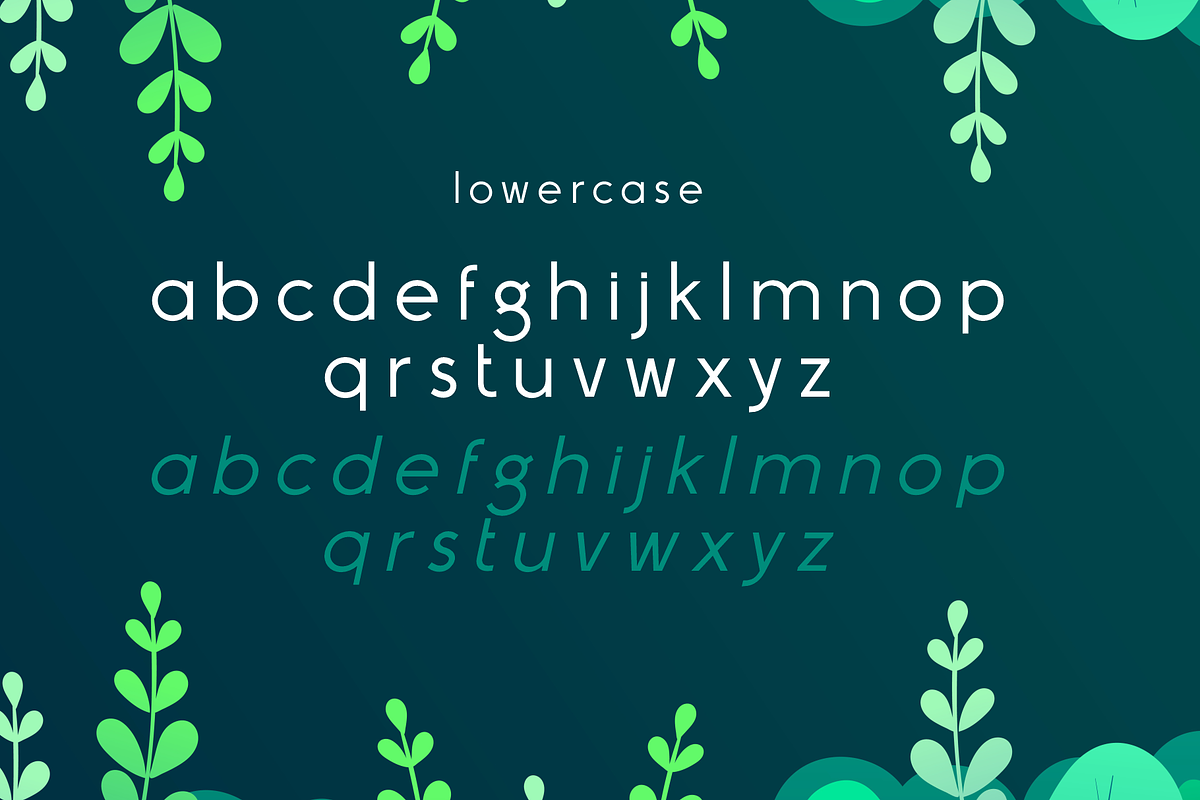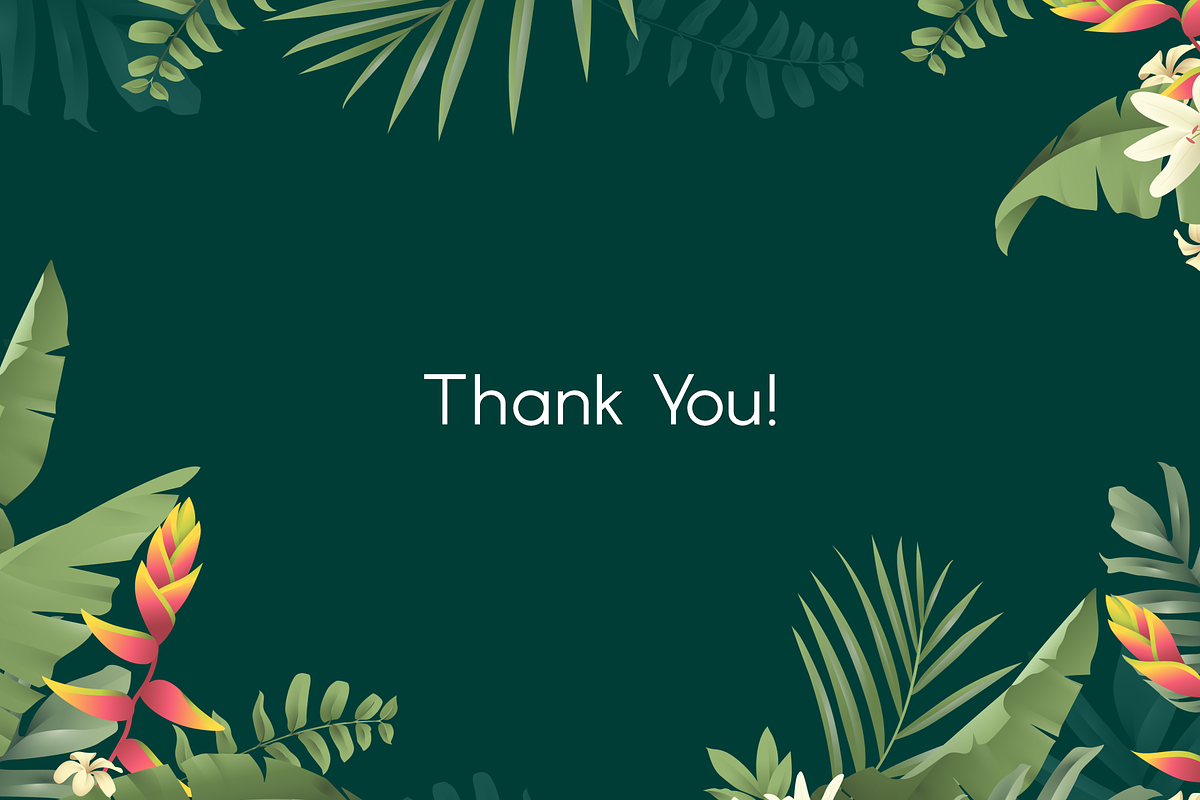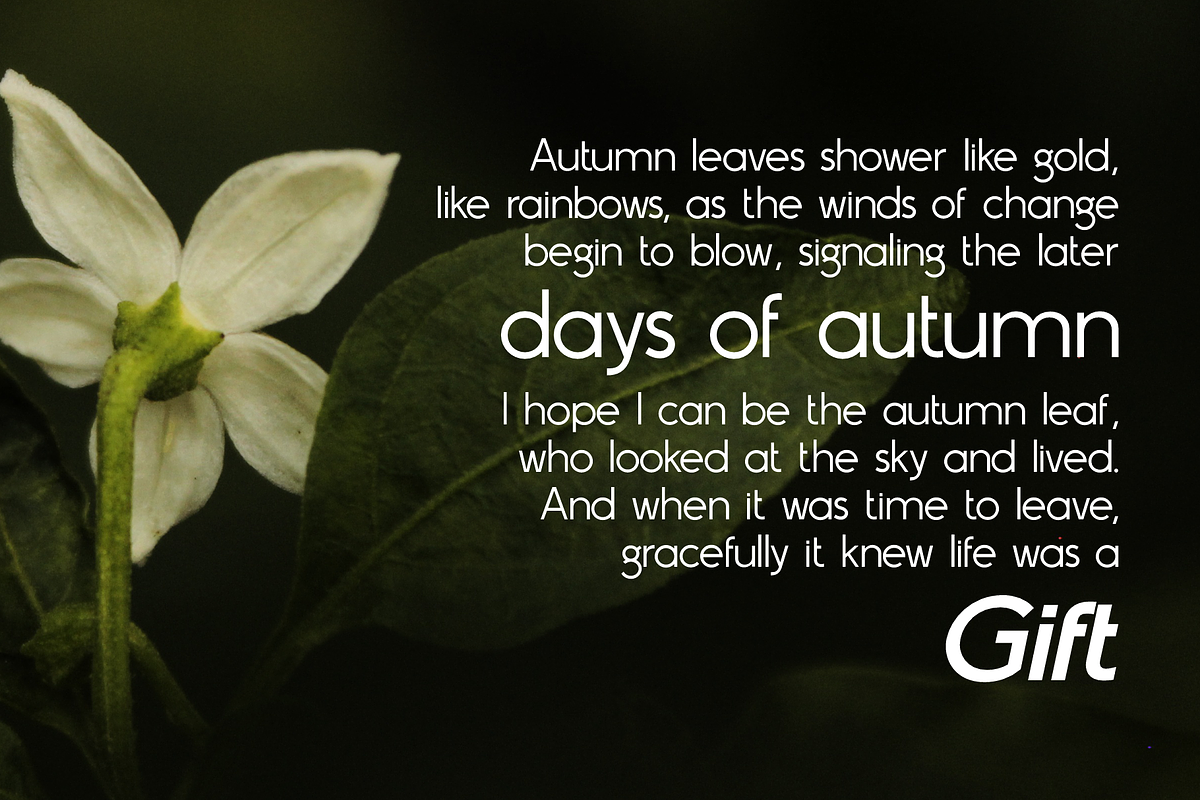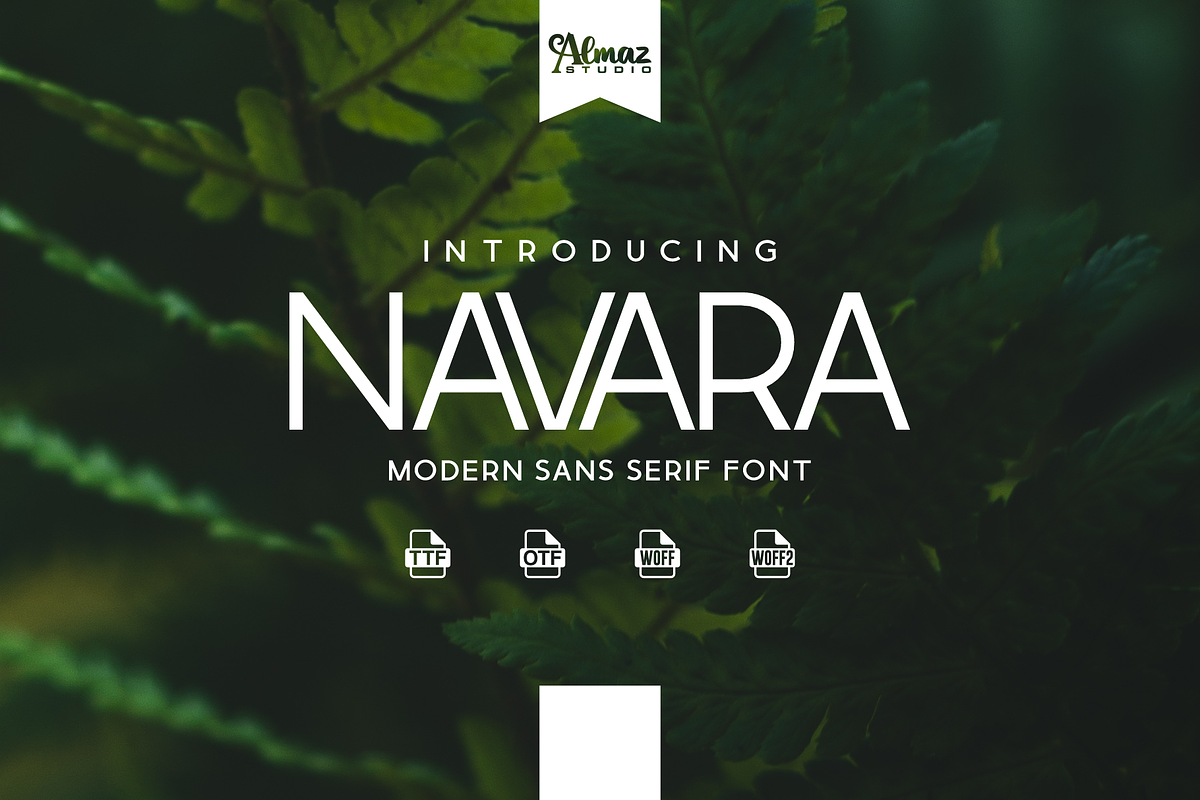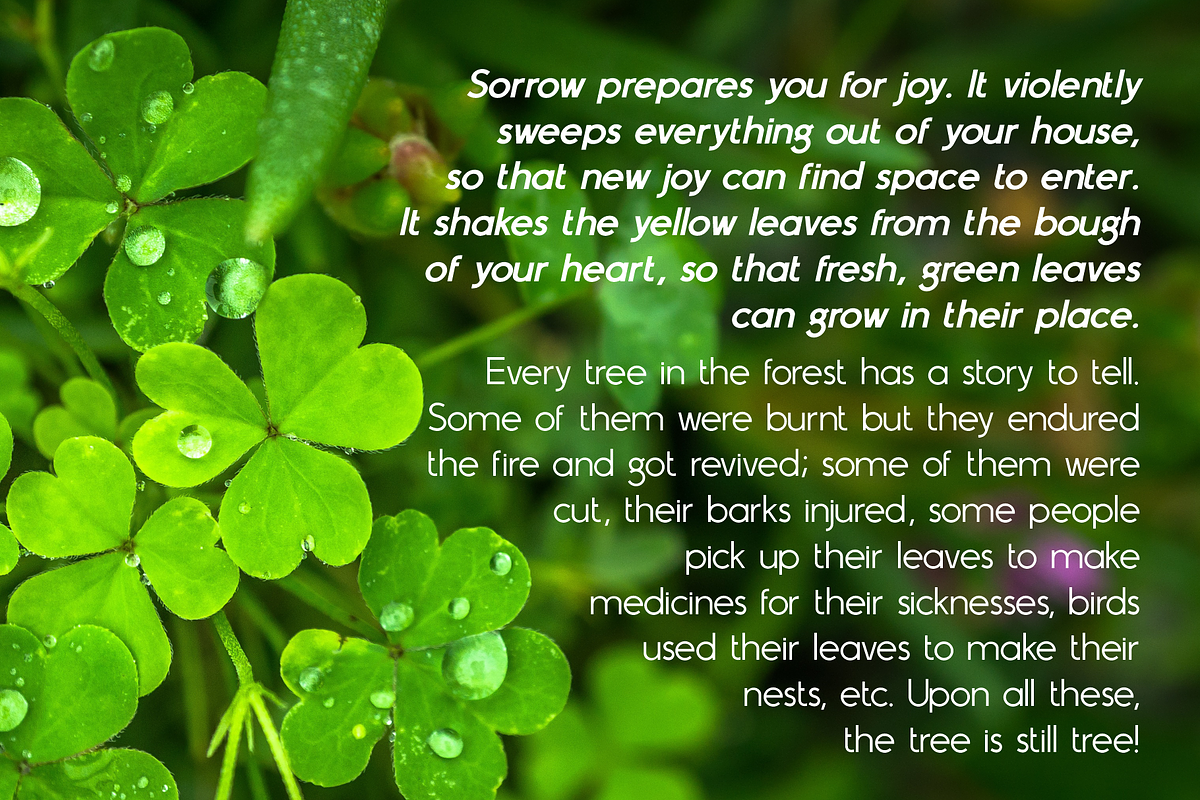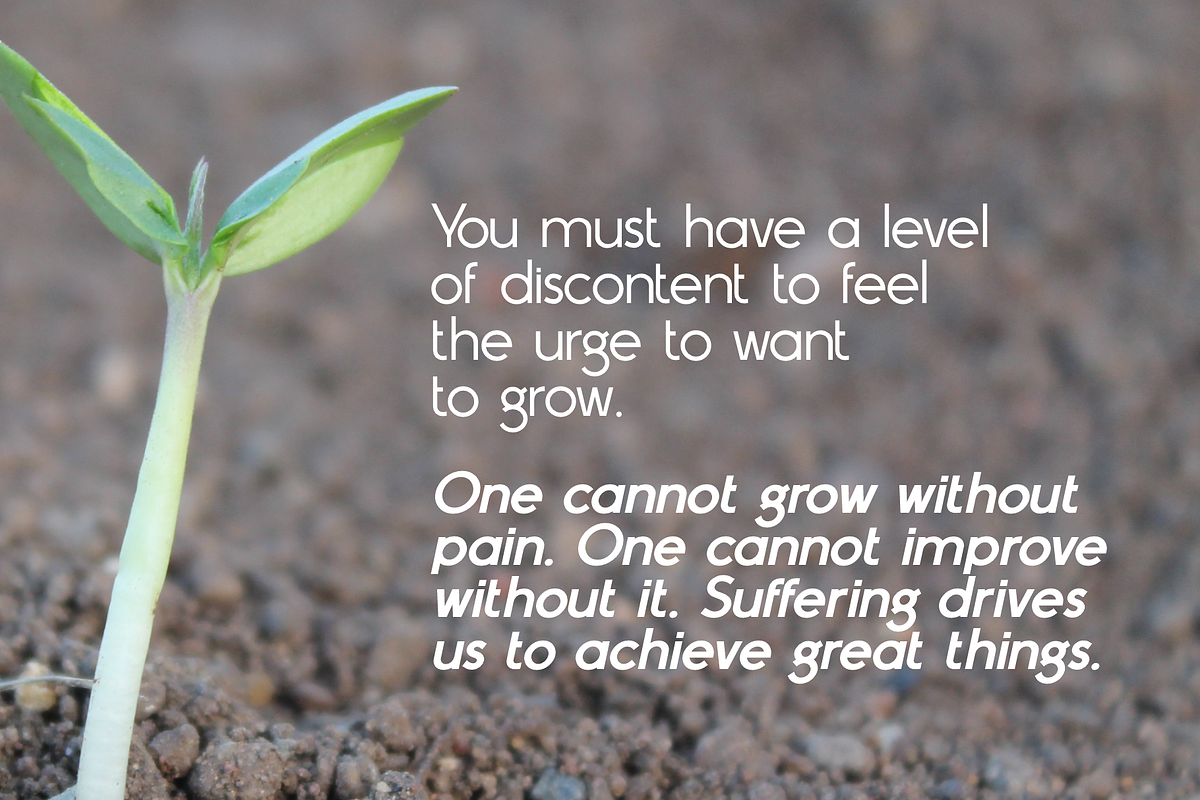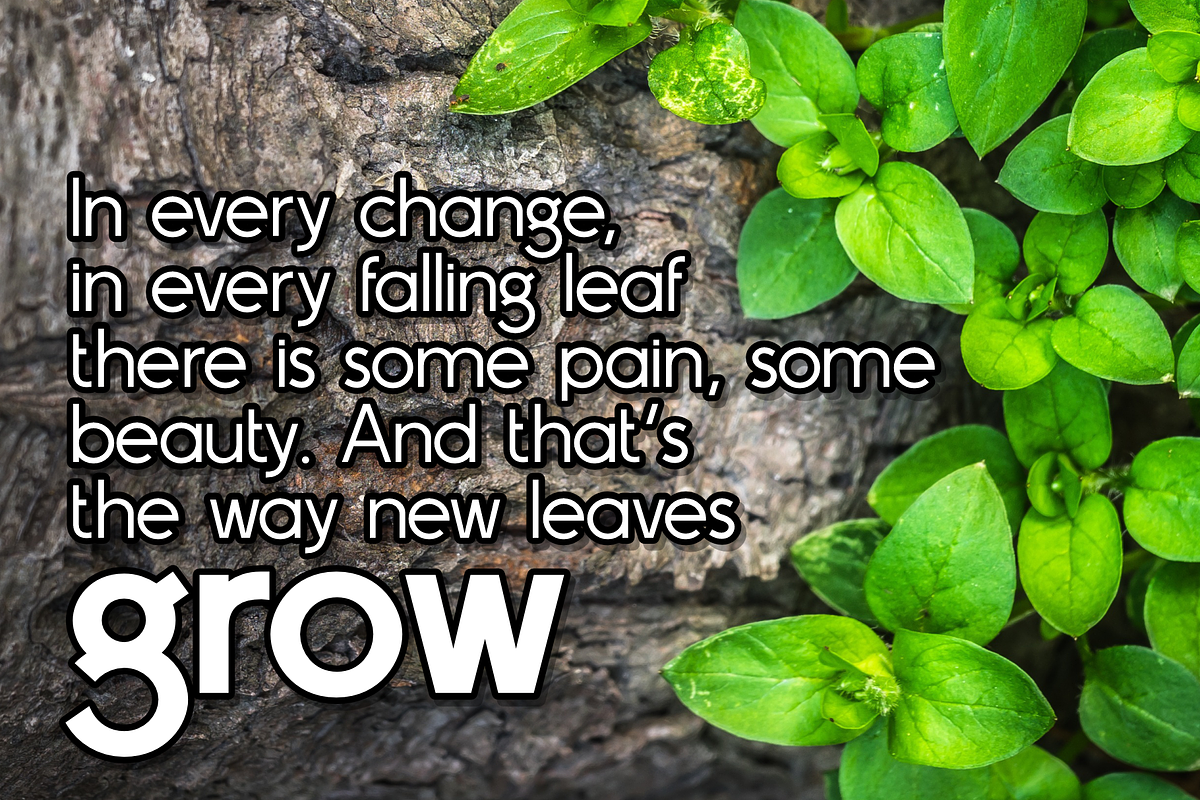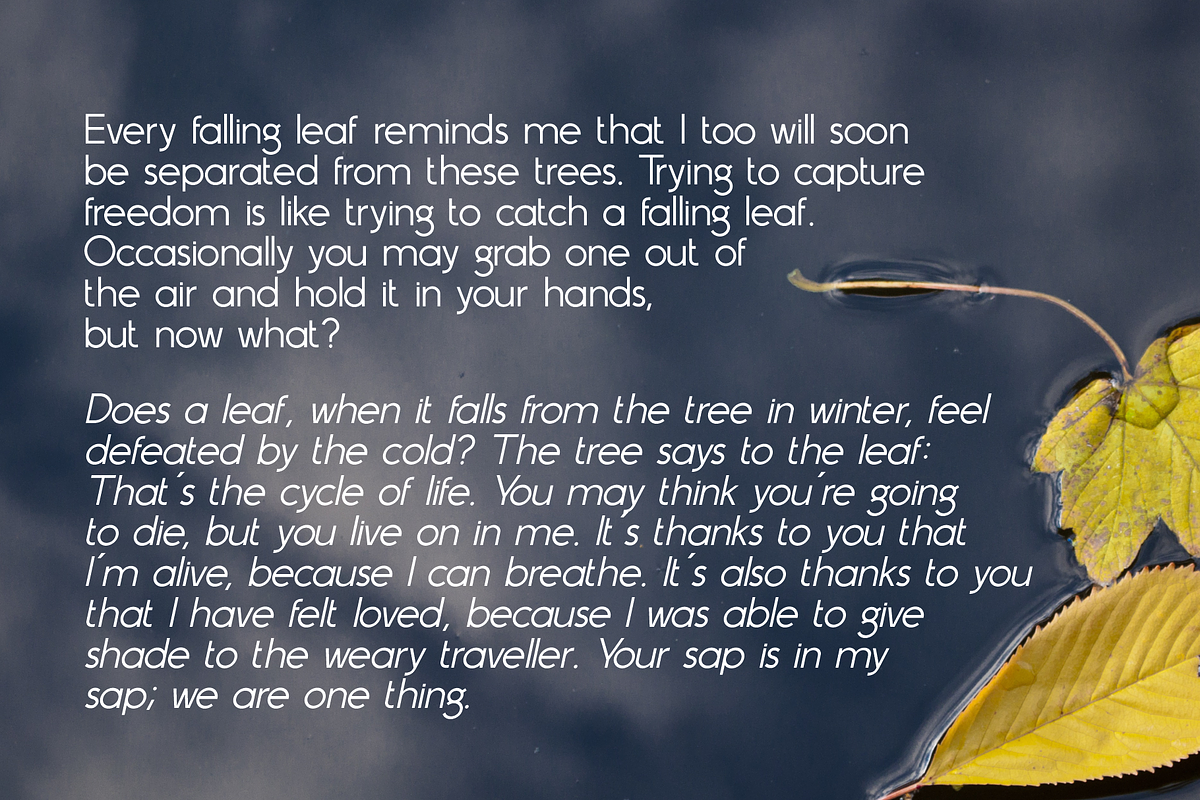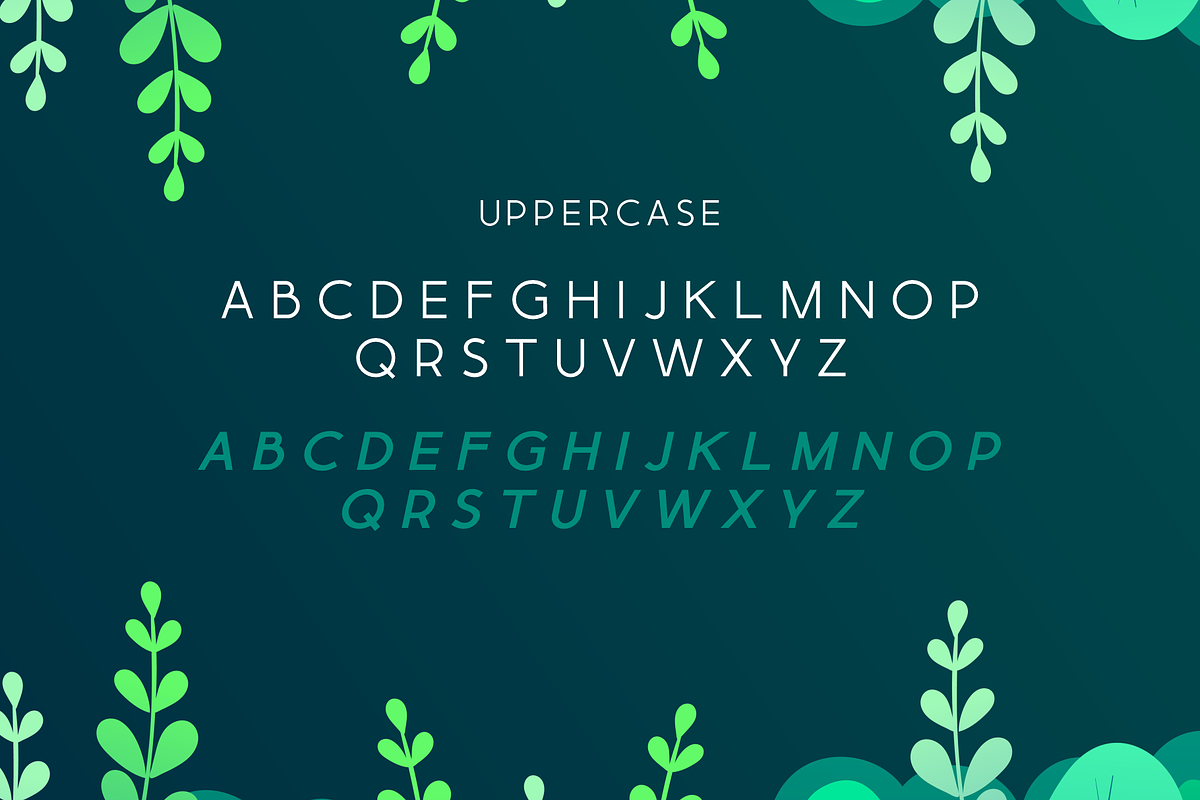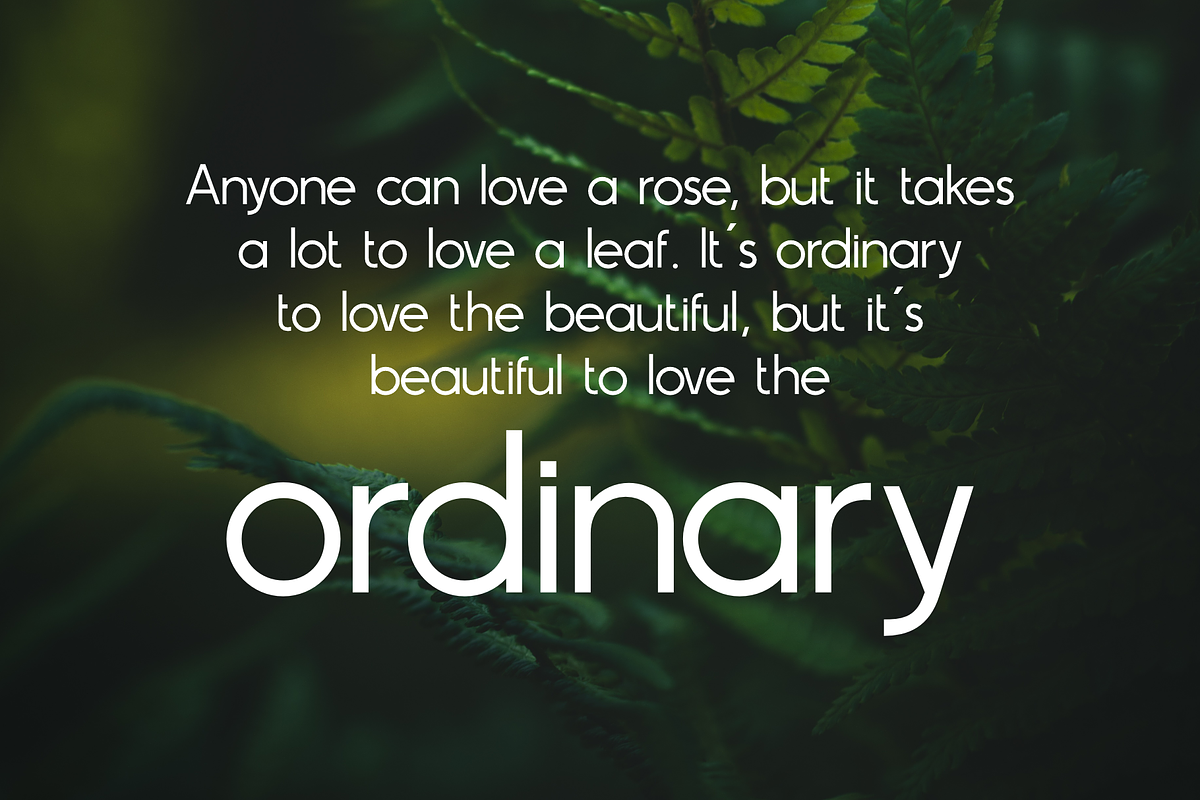
Navara
Navara this is a brand new elegant typeface created by Almaz Studio™ with a powerful font family. Almost all current Latin-based languages are supported. Navara this allows you to install the fonts on a computer and use them to create posters, web graphics, game graphics, t-shirts, videos, signs, eBooks, logos and more. Navara With a very strong font character will make your design different and more attractive. This font has several alternatives built into it, perfect for creating logo designs, badges, web fonts, magazines and more. Upon closer inspection you will notice the terminals of some of the characters are slightly turned inwards, this detail gives its distinctive and friendly personality. Read the license agreement for details. If you’d like to embed these fonts in an app, on the web or anything that’s not covered by the desktop license agreement, visit the link below.
- Complete characters uppercase, lowercase, numeral, and punctuations